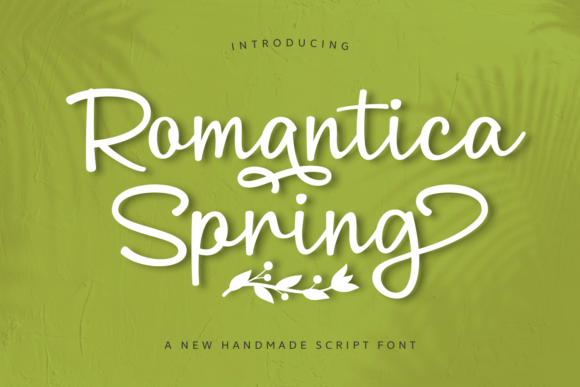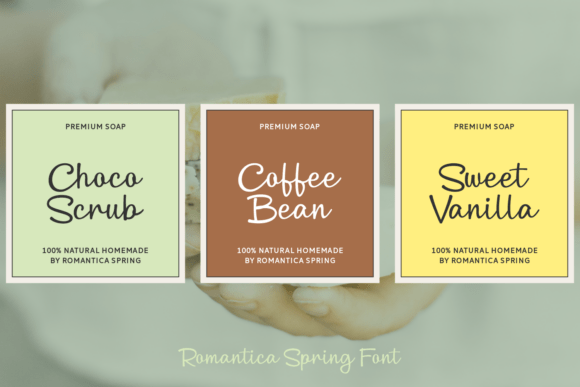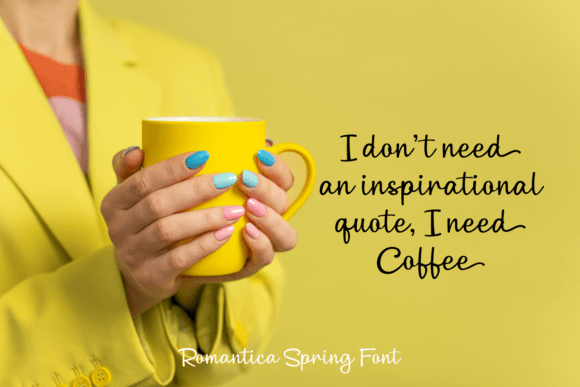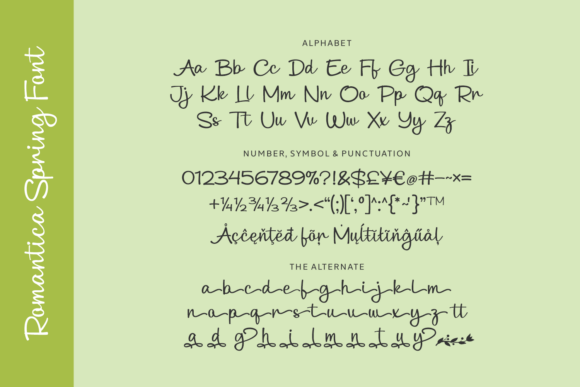
Romantica Spring Font: Elegant Script for Branding & Wedding Design
About the Romantica Spring Font
Unleash your creativity with Romantica Spring Font, a versatile font perfect for a wide range of applications. Romantica Spring presents as a charming and handcrafted script font, conveying a sense of warmth and natural elegance. Its appeal lies in its flowing, slightly irregular letterforms that evoke a personal, handwritten touch, setting it apart from more rigid or overly polished fonts. The varying thickness in the strokes adds visual interest and a dynamic feel. The inclusion of uppercase and lowercase letters, numerals, standard punctuation, symbols, and accented characters for multilingual support makes it a versatile tool for diverse applications.
This font would particularly benefit individuals and businesses in creative fields such as branding for handmade goods, designing invitations, crafting social media content with a personal touch, and creating eye-catching packaging. Its features extend beyond the basic character set to include stylistic alternates or ligatures (implied by the natural flow of the script), enhancing the handwritten feel and providing more design flexibility. The overall impression is a font that balances readability with a distinctive, approachable personality, making it ideal for projects seeking a touch of handcrafted beauty.
Romantica Spring Font Usage Examples
Romantica Spring Font Example